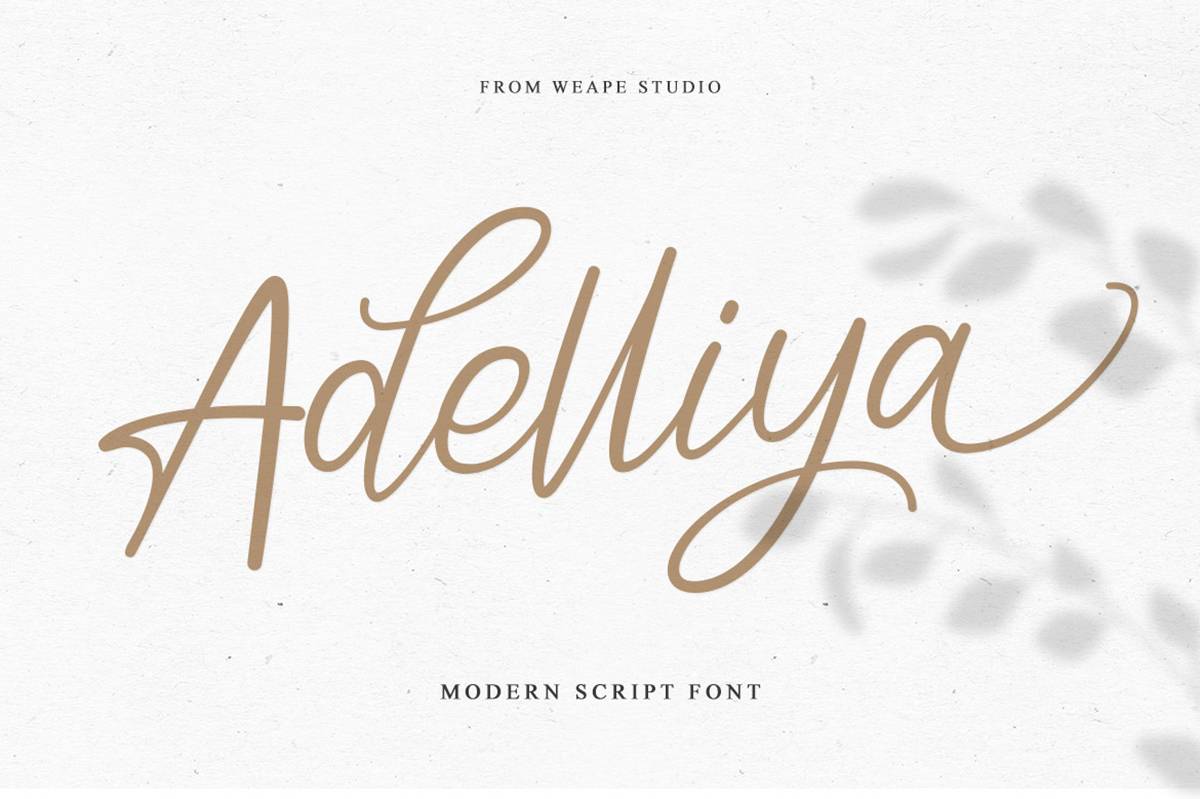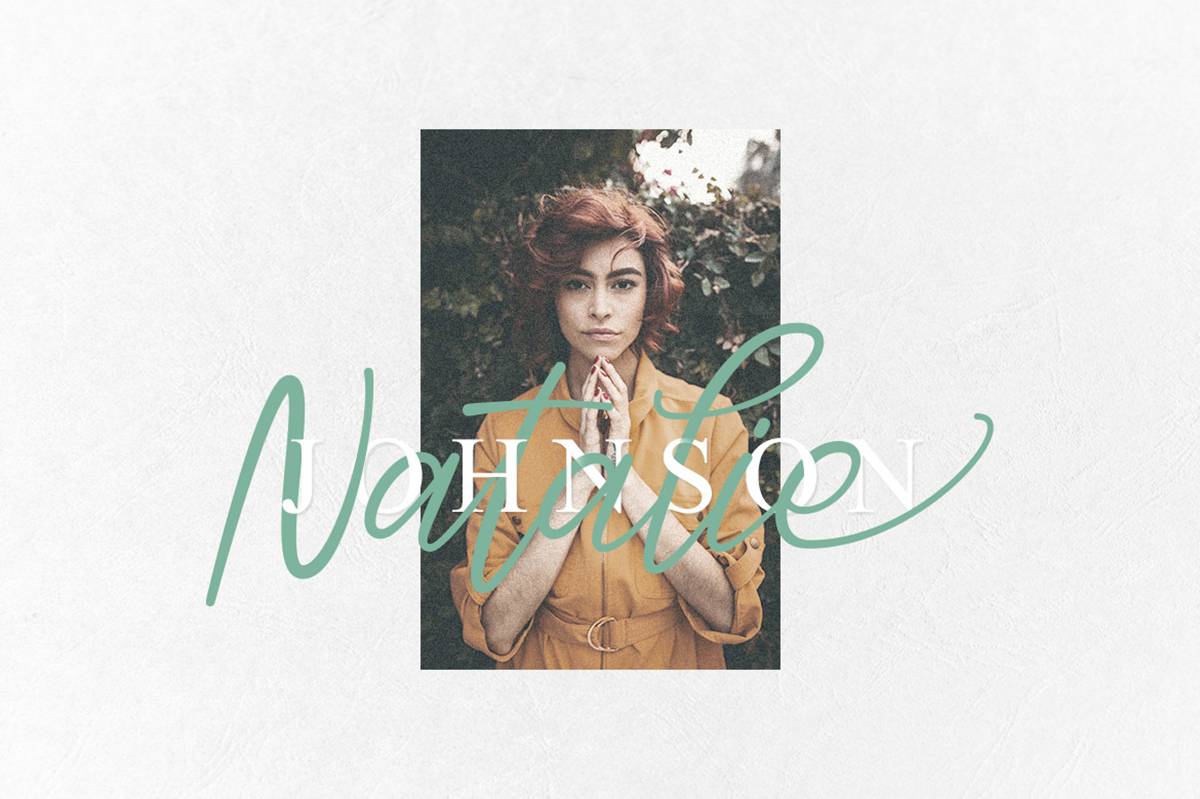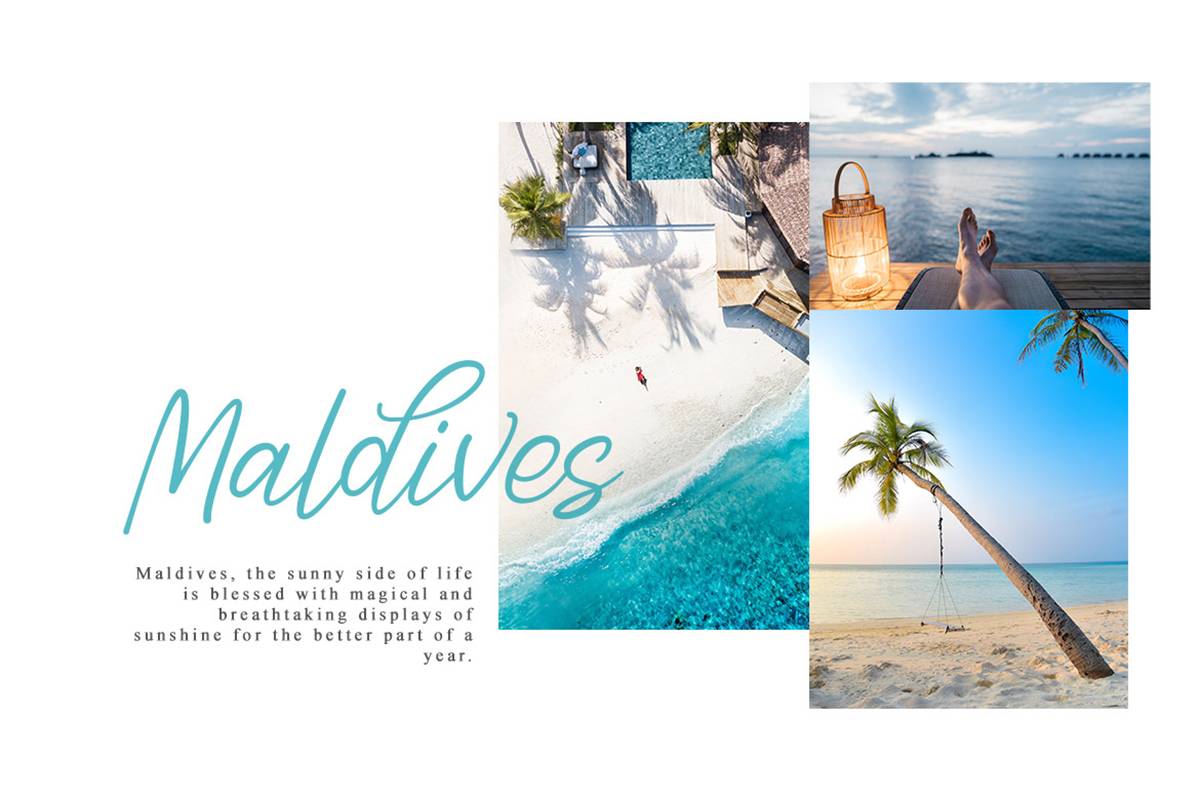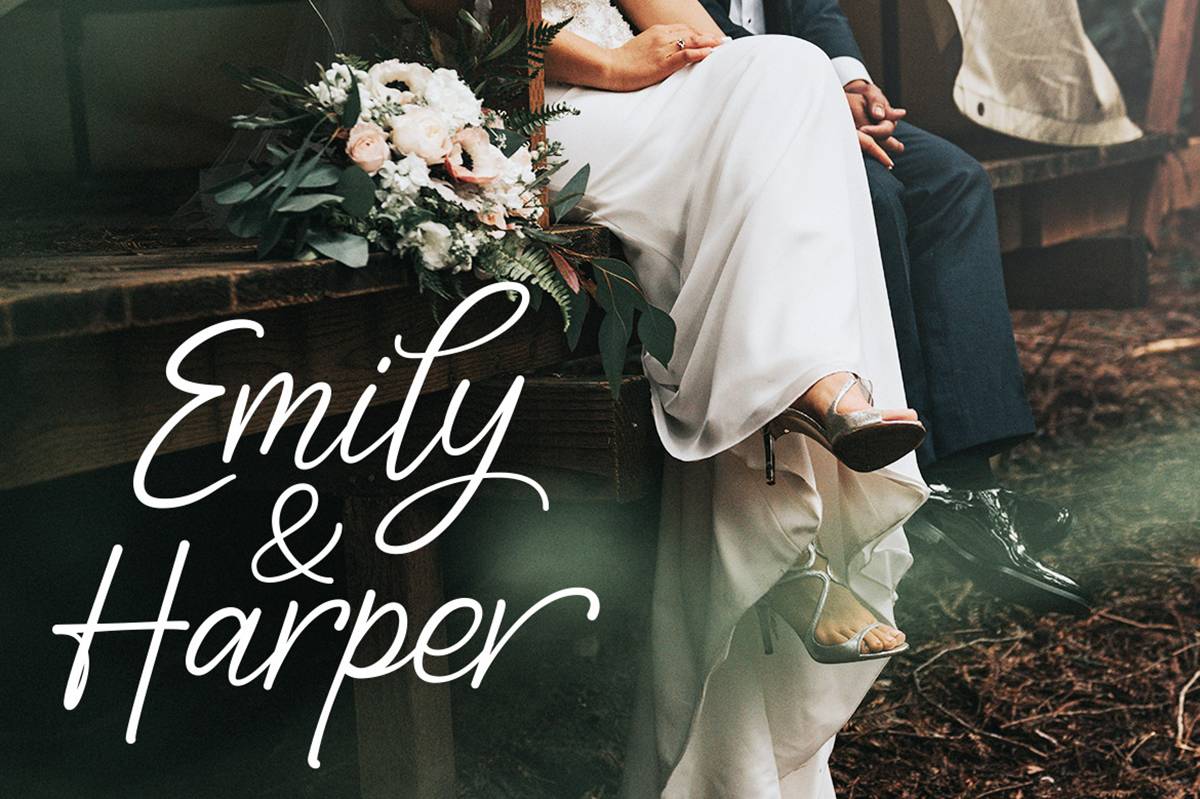
Adelliya is a graceful script font with a light, flowing style that mimics elegant handwriting. Its slender strokes and smooth curves create a refined, airy feel, making it perfect for invitations, branding, and stylish headlines where a personal, sophisticated touch is desired. This font works best in creative and fashion-forward contexts that seek a blend of modernity and charm.